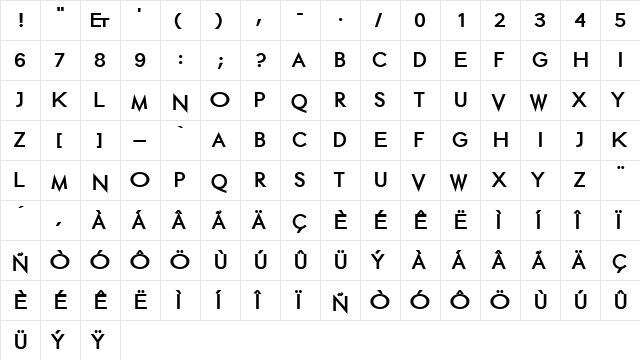
ETH Large Expanded Black
Design Context for ETH Large Typeface
ETH Large takes a measured approach to typography — its balanced proportions and neutral character make it a reliable workhorse for both digital and print work.